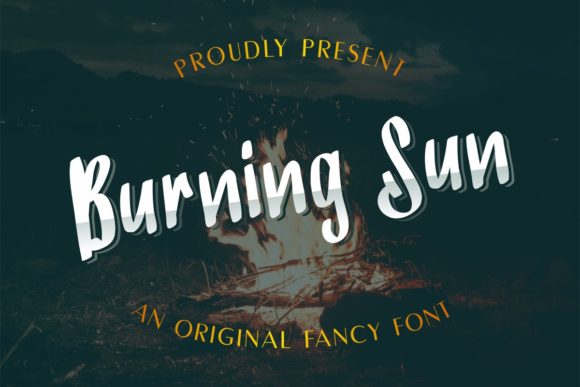
The Burning Sun Font: A Modern Handwritten Script to Ignite Your Designs
I’ll never forget the design project that led me to discover the Burning Sun font. I was working on a branding campaign for a trendy new coffee shop, and I was struggling to find the perfect font to capture their laid-back, yet modern vibe. That’s when I stumbled upon Burning Sun, a beautiful handwritten script font that instantly resonated with the project’s aesthetic. In this article, I’ll share my experience with Burning Sun, its features, and how to make the most of it in your designs.
An Honest Review of Burning Sun
So, what makes Burning Sun so special? Let’s dive into the good stuff and some minor quirks.
What I Love About Burning Sun
- ✨ Contemporary coolness: Burning Sun has a fresh, modern feel that’s perfect for designs that need a bit of sophistication.
- ✅ Ease of use: This font is incredibly easy to read, even at smaller sizes, making it versatile for various design applications.
- 💫 Expressive flair: The handwritten nature of Burning Sun adds a touch of personality to any text, making it ideal for creative projects.
While Burning Sun is an excellent font, there are a few things to keep in mind:
- 🤔 Legibility at very small sizes: While generally easy to read, Burning Sun might become a bit tricky to decipher at very small font sizes (below 8pt). It’s best used at sizes where its elegance can shine.
- ⚠️ Overuse: As with any beautiful font, using Burning Sun excessively can make your design look cluttered. Balance is key.
The Backstory Behind Burning Sun
Burning Sun was designed with the intention of capturing the essence of modernity and elegance. The designer aimed to create a font that feels both contemporary and timeless, perfect for a wide range of design projects. The inspiration came from the beauty of handwritten scripts and the need for fonts that can convey a sense of personality and flair.
Q: Is Burning Sun suitable for body text?
A: While Burning Sun is beautiful, it’s best used for headings and short paragraphs due to its elegant, yet somewhat decorative nature. For longer body text, a more straightforward font might be more readable.